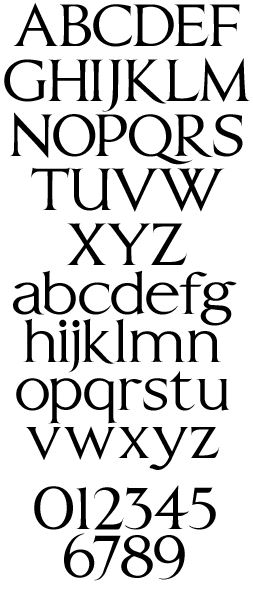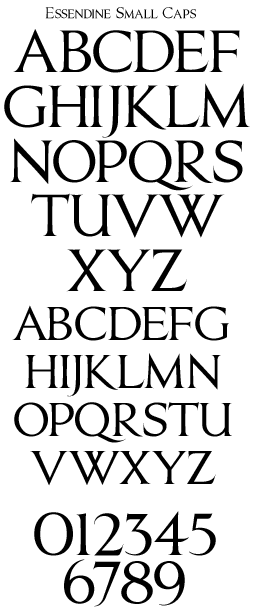
LHF Essendine Includes 2 fonts: Regular & Small Caps.
A traditional Roman typeface done brush style. Inspired by the legendary
Trajan column. Well suited for applications that call for a serious
or professional manner. Both fonts include full punctuation and
accent characters